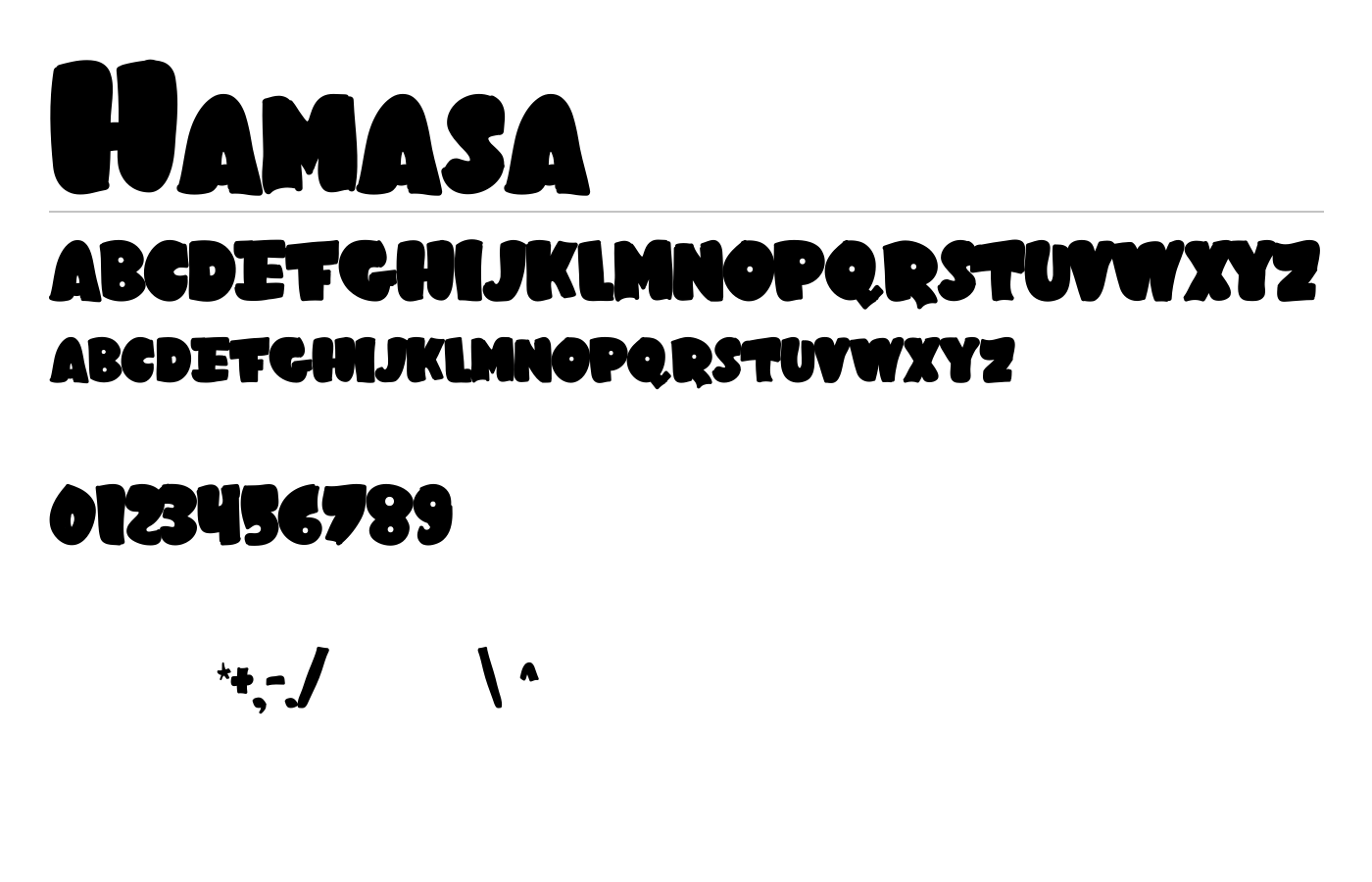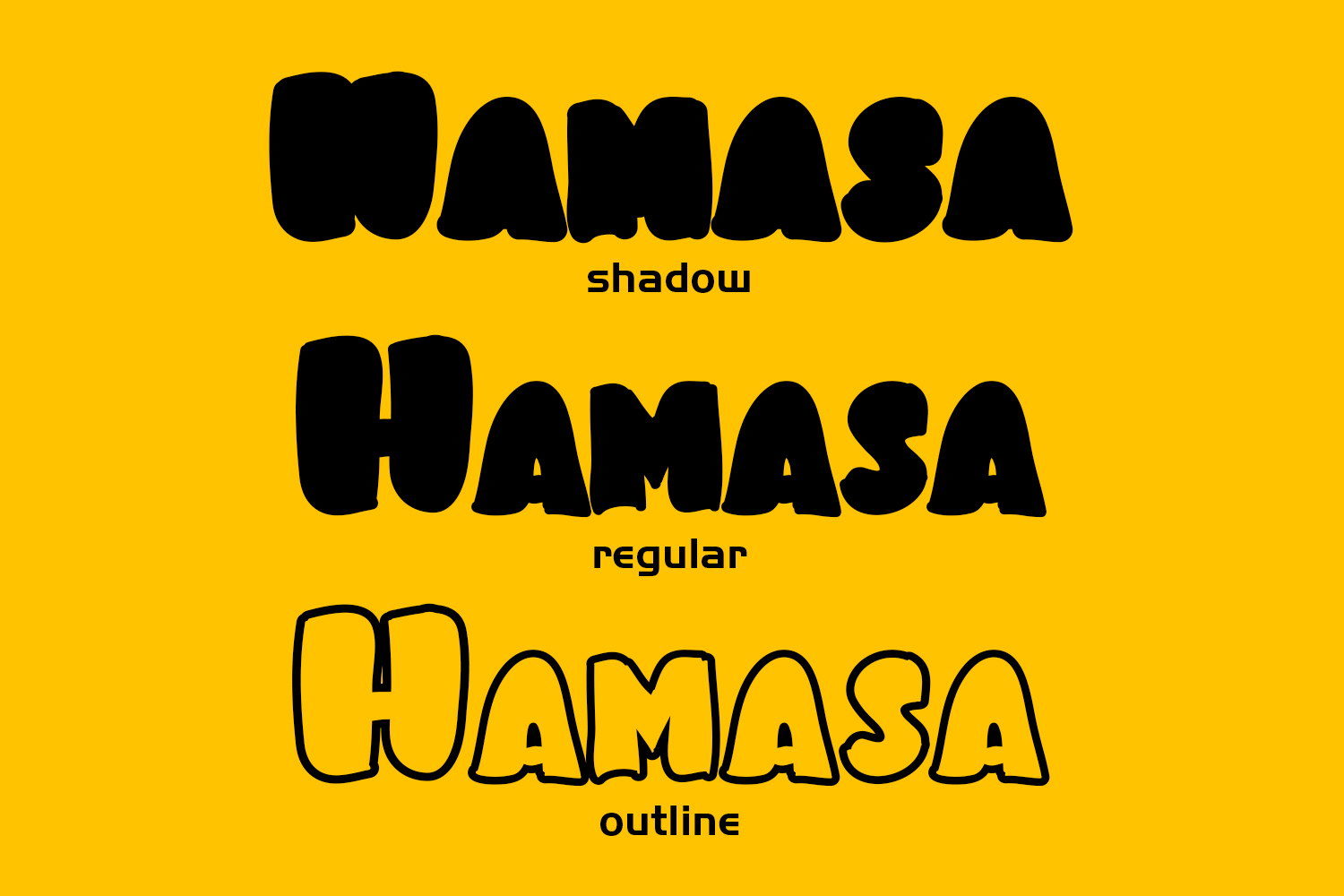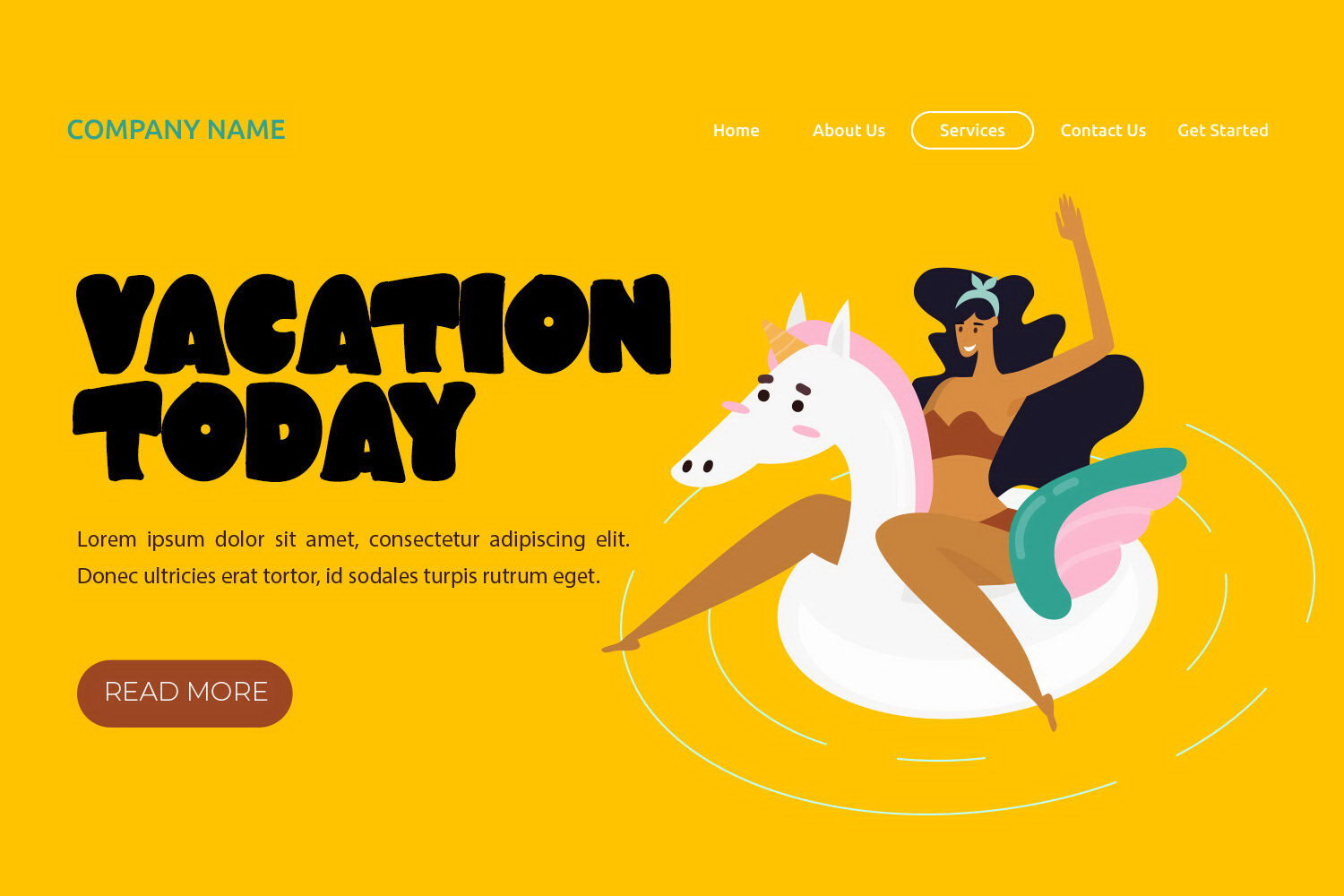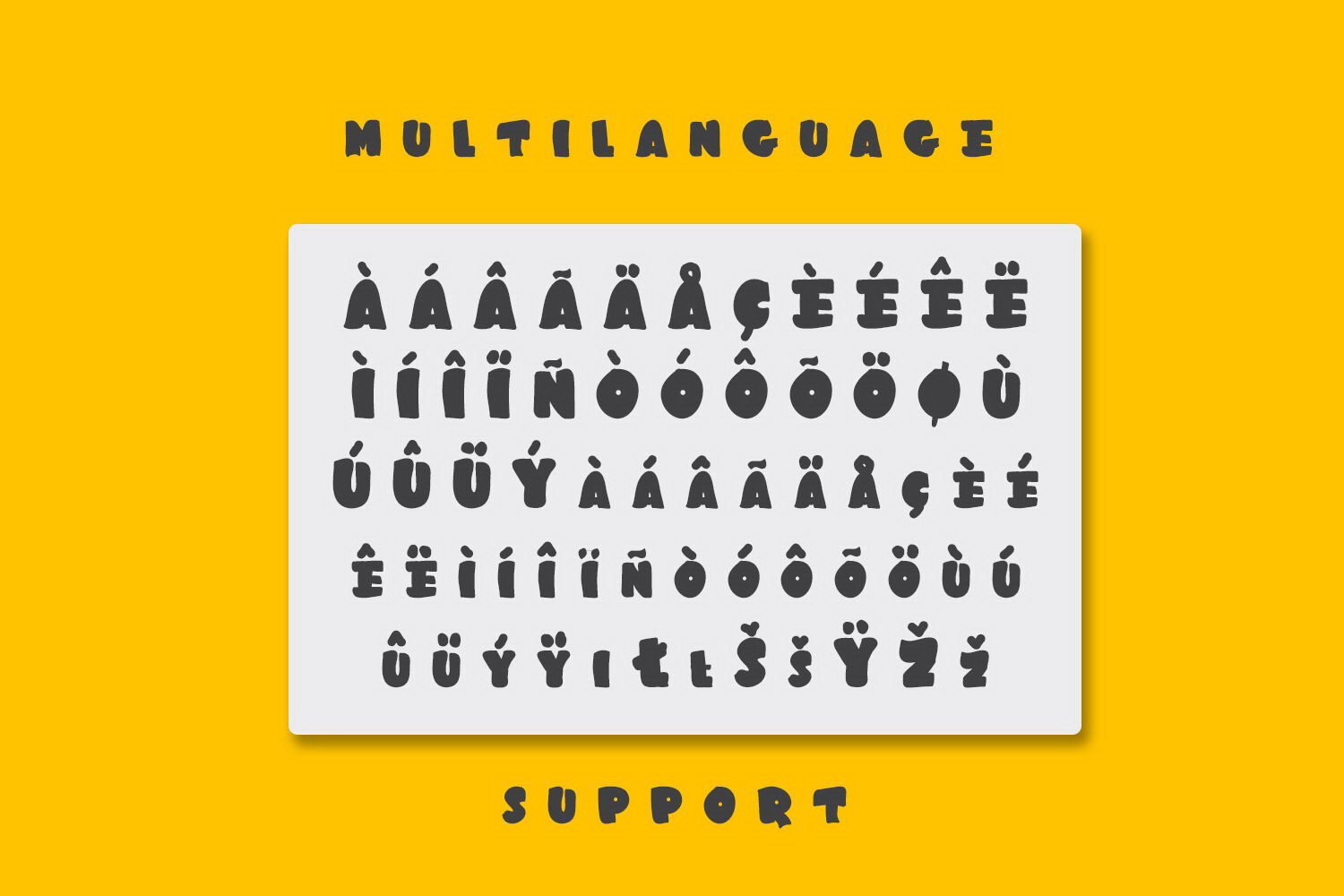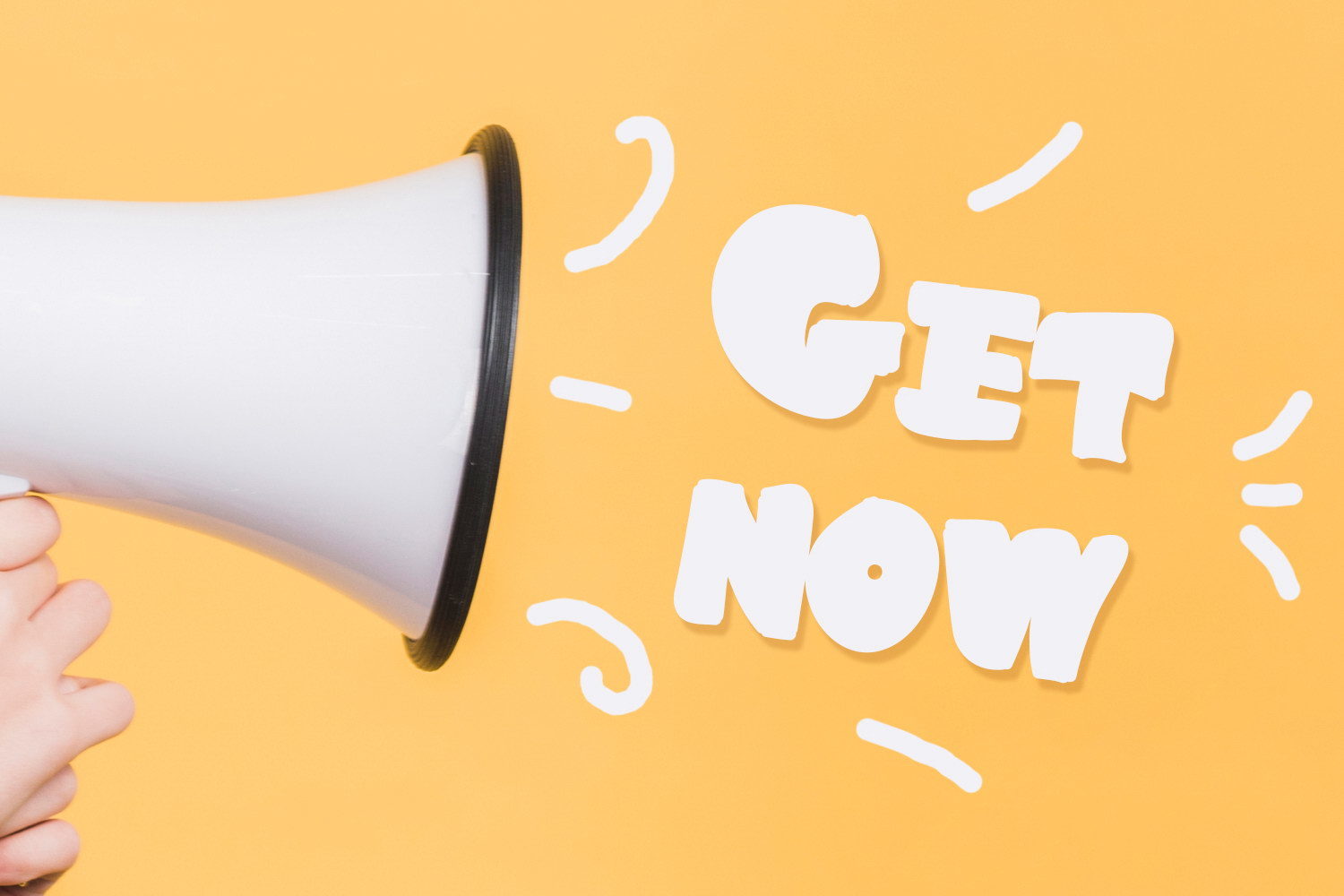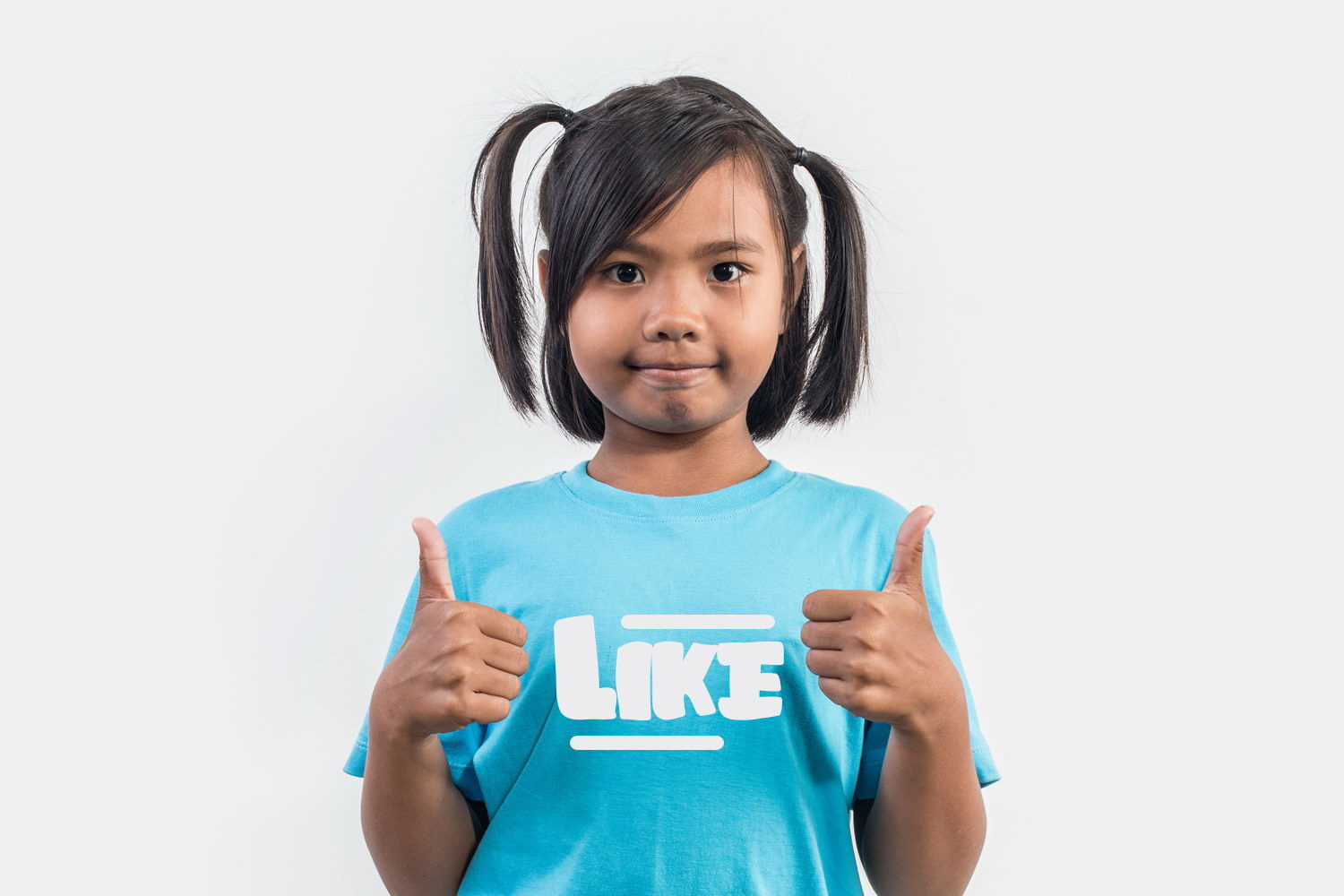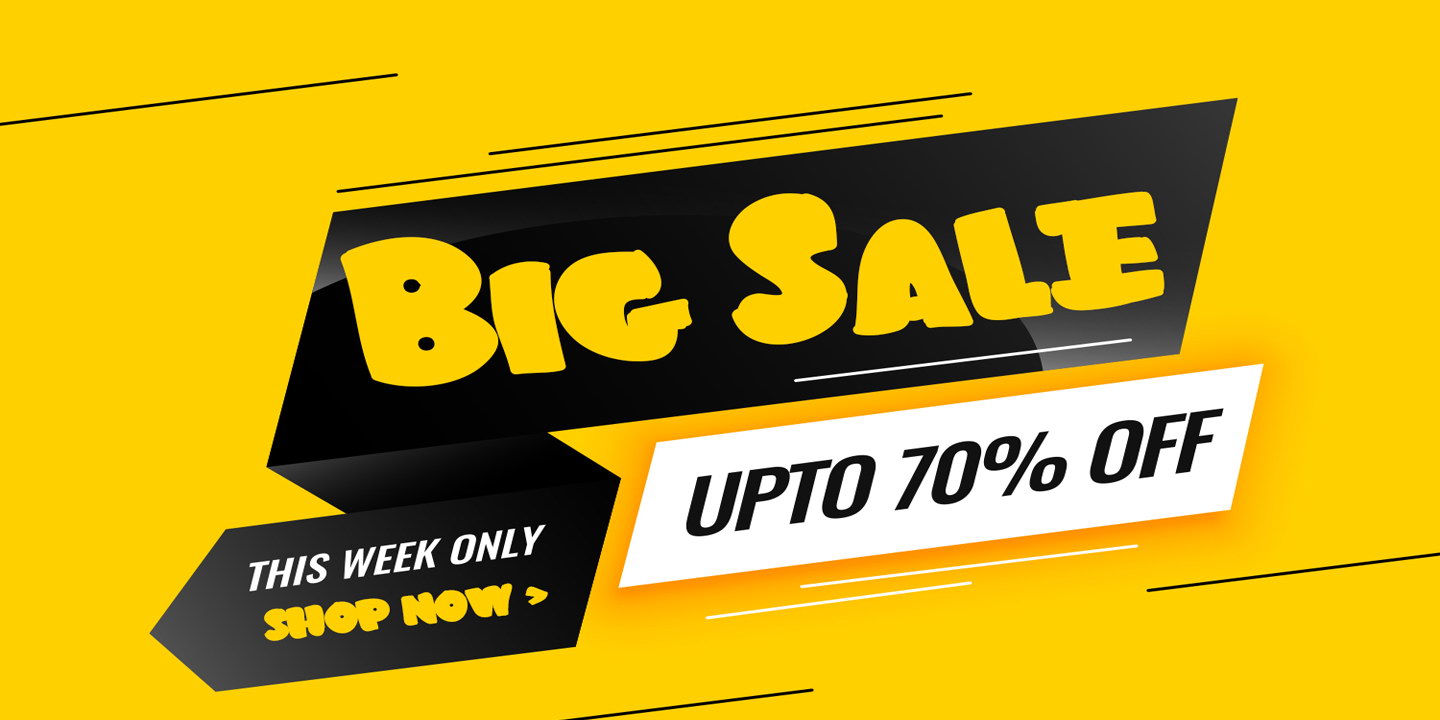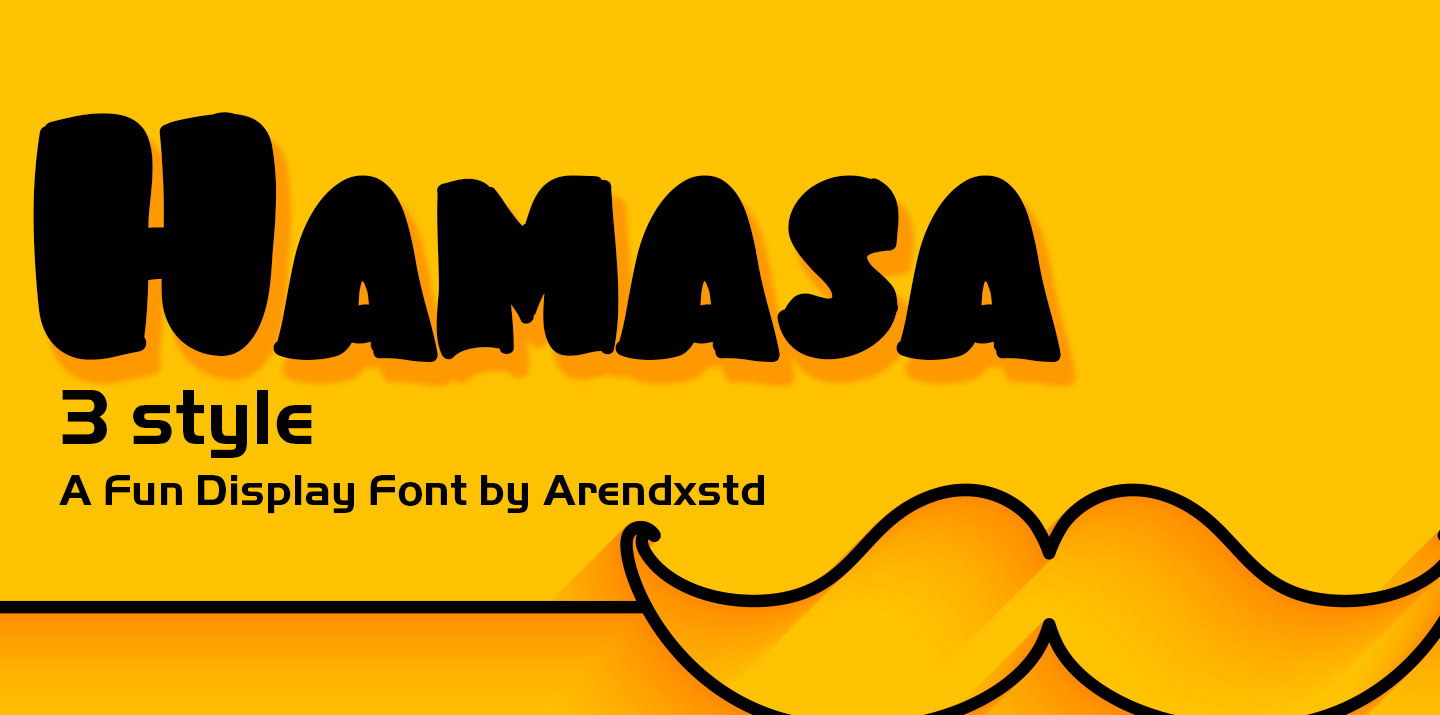
Hamasa is a bold and playful display font with chunky, rounded letterforms that convey a fun and friendly vibe. Its heavy weight and informal style make it ideal for eye-catching headlines, logos, and branding that aim to appear approachable and energetic, perfect for children’s products or casual creative projects.
Hamasa Font
About Hamasa Font
| Designer | Arendxstudio |